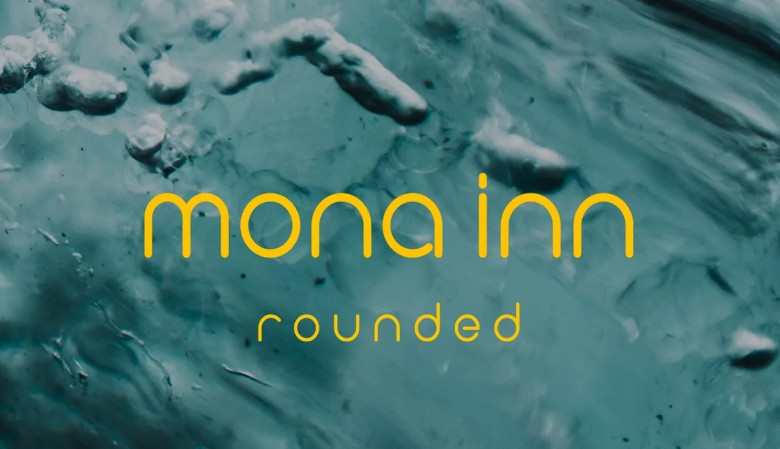
Mona Inn Font
Mona Inn boasts an elegant yet minimal modern aesthetic and its round sans-serif design will enhance any logo or graphic designs. Mona Inn can also be used in various branding projects such as logos, creative products and t-shirt prints.
Mona Inn Sans Serif Font